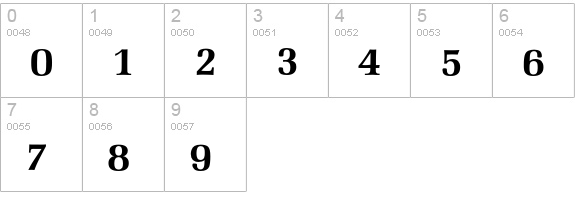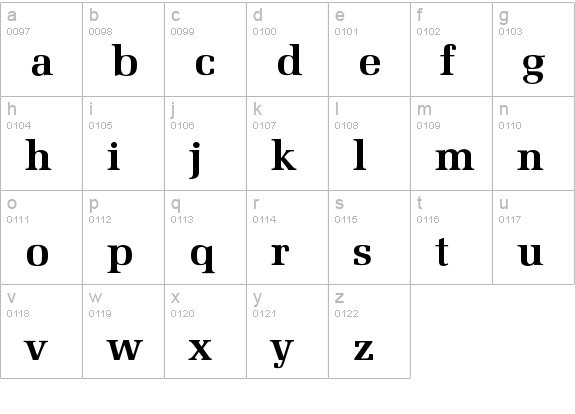
Marseille-DemiBold Font Details
Marseille-DemiBold is a sub-bold, structured variant in the Marseille typeface family \xE2\x80\x94 well suited to sub-headlines and emphasised passages.
Marseille-DemiBold font is a bold and versatile typeface that exudes confidence and elegance. With its strong and commanding presence, this font is perfect for creating eye-catching headlines, logos, and other design projects that demand attention. The Marseille-DemiBold font strikes a perfect balance between modernity and classic appeal. Its clean and sharp lines make it highly legible, even at smaller sizes, while its bold weight adds a touch of sophistication and authority. One of the standout features of Marseille-DemiBold font is that it is freely available to download at FontsMarket.com. This means that designers and creatives can easily access this exceptional typeface without any restrictions or limitations. Whether you are working on personal or commercial projects, Marseille-DemiBold font offers you the freedom to create stunning designs that leave a lasting impression. The versatility of Marseille-DemiBold font extends beyond its timeless aesthetics. Its wide range of characters and extensive language support make it suitable for various design applications. From print materials like brochures and posters to digital platforms such as websites and social media graphics, this font adapts effortlessly to any medium. Experience the power and elegance of Marseille-DemiBold font today. Download it for free at FontsMarket.com and unlock a world of design possibilities. Elevate your projects with this exceptional typeface and captivate your audience with its bold and striking presence.